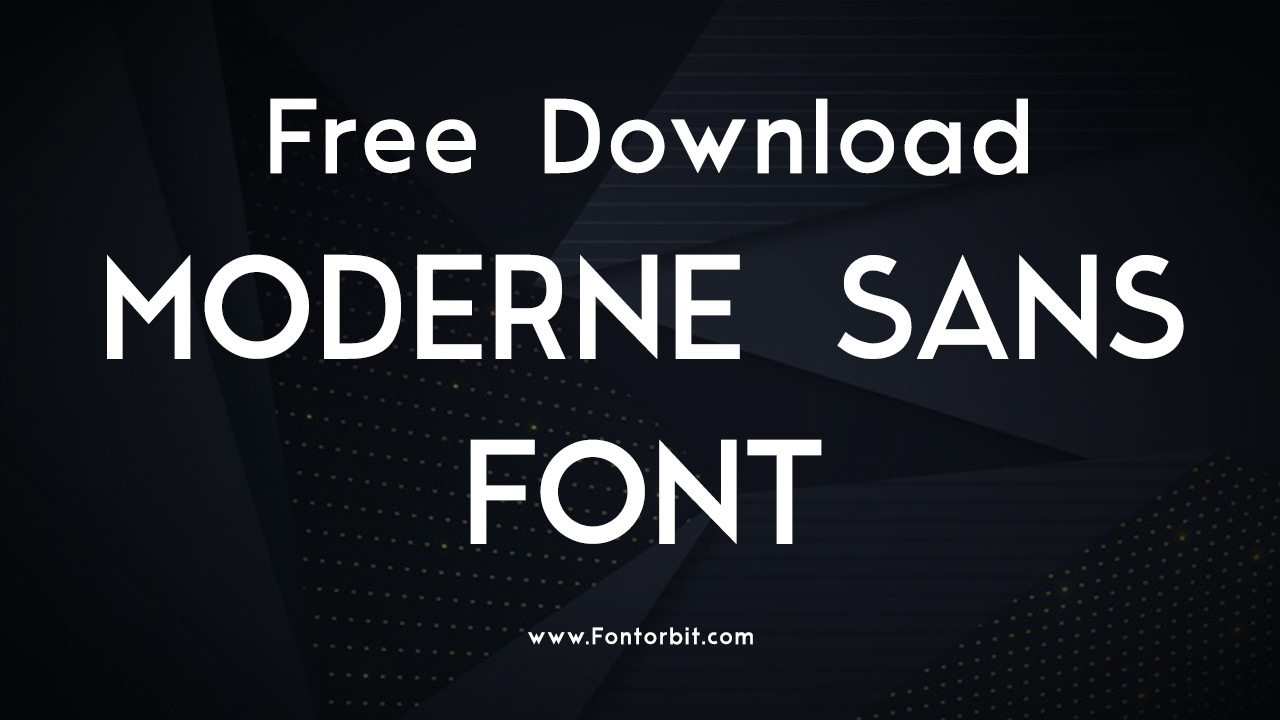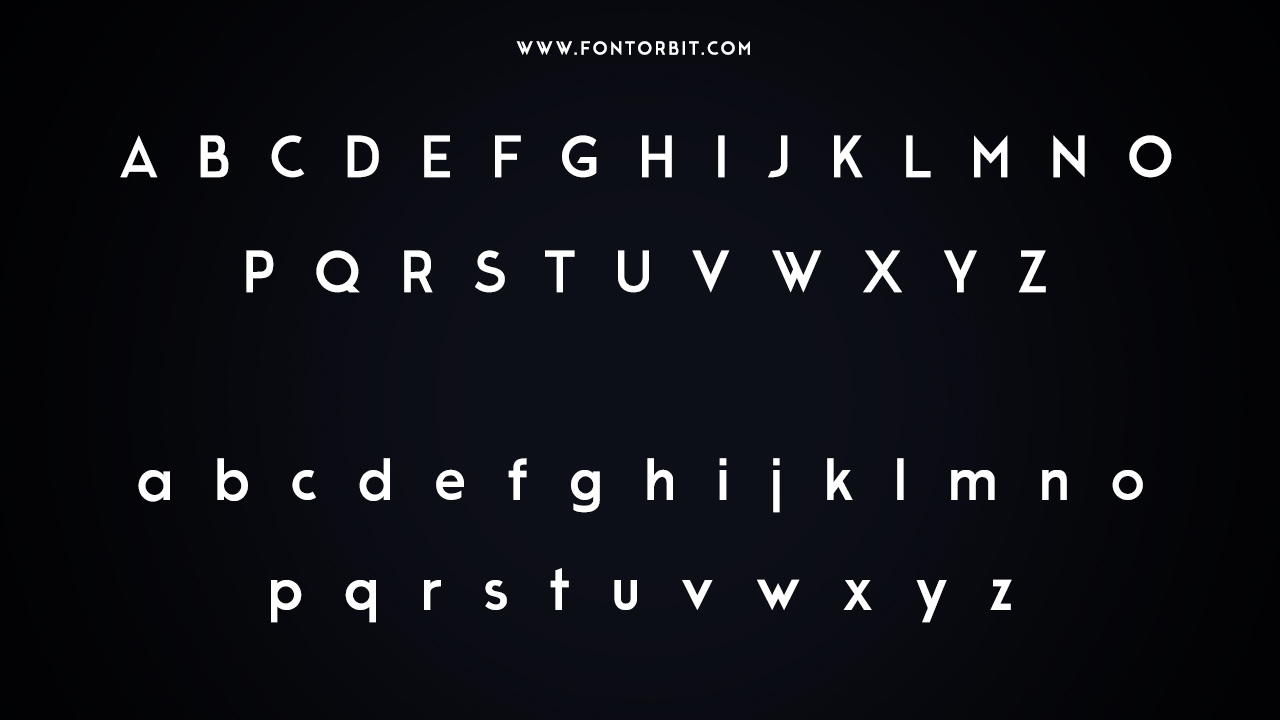
Marius Kempken designed Moderne Sans Font, a refined sans-serif typeface influenced by 1920s typography. With its clean lines and classic appeal, Moderne Sans features uppercase letters and includes lowercase letters, numbers, and alternative characters, enhancing its versatility for various design needs.
Moderne Sans Regular offers a clean, classic look with a hint of 1920s style, while Moderne Sans Italic adds a slanted, dynamic touch. The font family includes Light and Bold weights, providing flexibility for different design contexts and applications.
- Classic Branding
- Editorial Design
- Web and Digital Projects
Moderne Sans offers features such as multilingual support, alternates, and PUA encoding, making it highly versatile and user-friendly. It is ideal for creating elegant and timeless brand identities, enhancing sophisticated magazine layouts, and providing a clean, modern look for websites and user interfaces. It also boosts readability and style in promotional materials.
Moderne Sans combines the elegance of 1920s typography with modern design elements, making it versatile for a range of applications. Its clean lines and varied weights are perfect for creating stylish and impactful visual communications.
Moderne Sans is a sans-serif typeface by Marius Kempken, inspired by 1920s typography, offering uppercase letters, lowercase letters, numbers, and alternative characters for versatile design use.
Moderne Sans features a clean, 1920s-inspired design with both uppercase and lowercase letters, numbers, and alternative characters, providing a sophisticated and versatile typographic solution.
Use Moderne Sans to create elegant and timeless brand identities with its classic appeal and modern versatility. Its various weights and styles enhance design flexibility.
Moderne Sans supports multiple Latin-based languages, ensuring broad usability. For additional language support, you may need to explore other typefaces with extended character sets.
Moderne Sans pairs well with Merriweather or Playfair Display for a classic serif touch, Montserrat or Open Sans for a clean modern look, and Roboto Slab or Arvo for a bold, structured contrast.